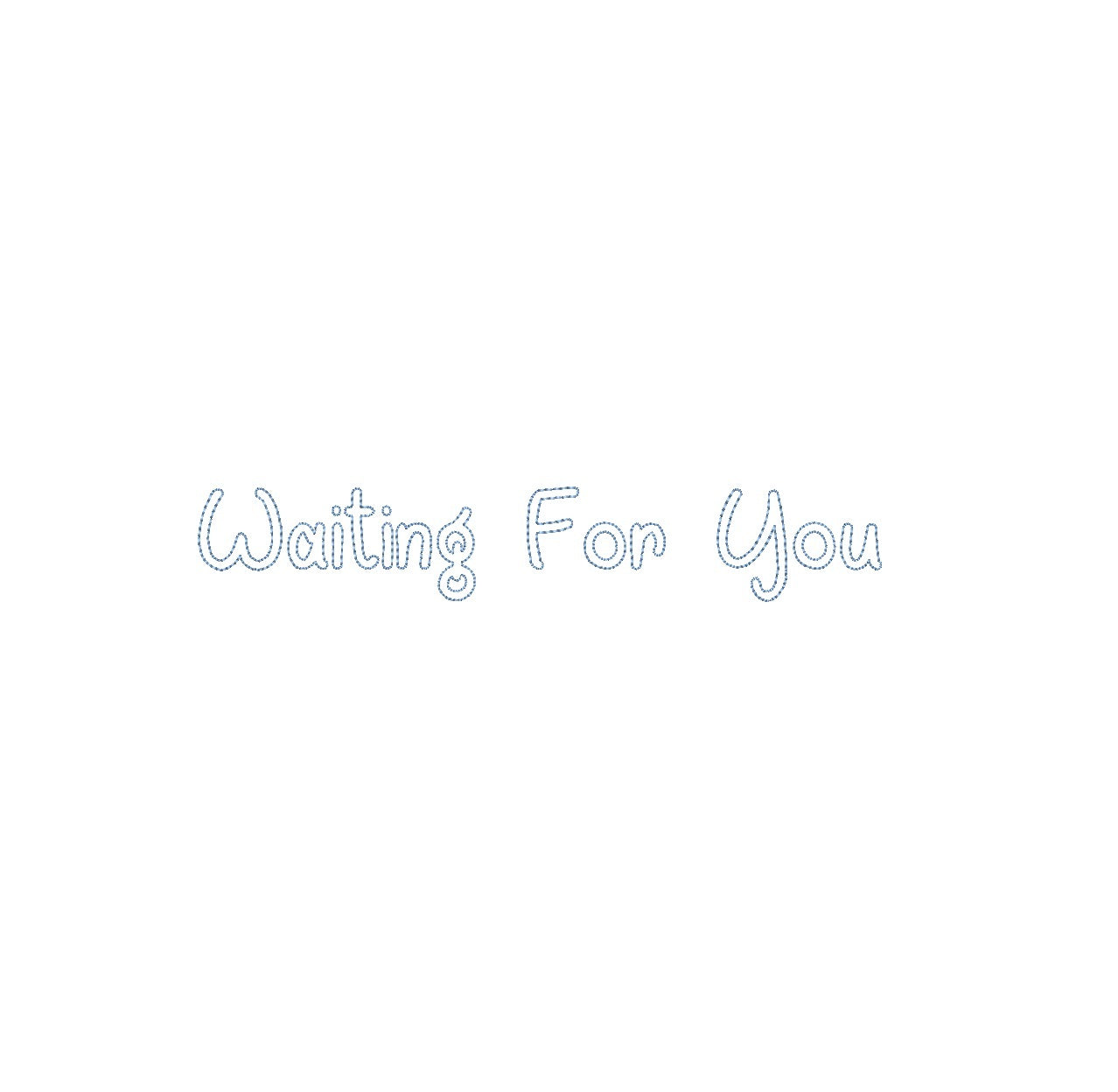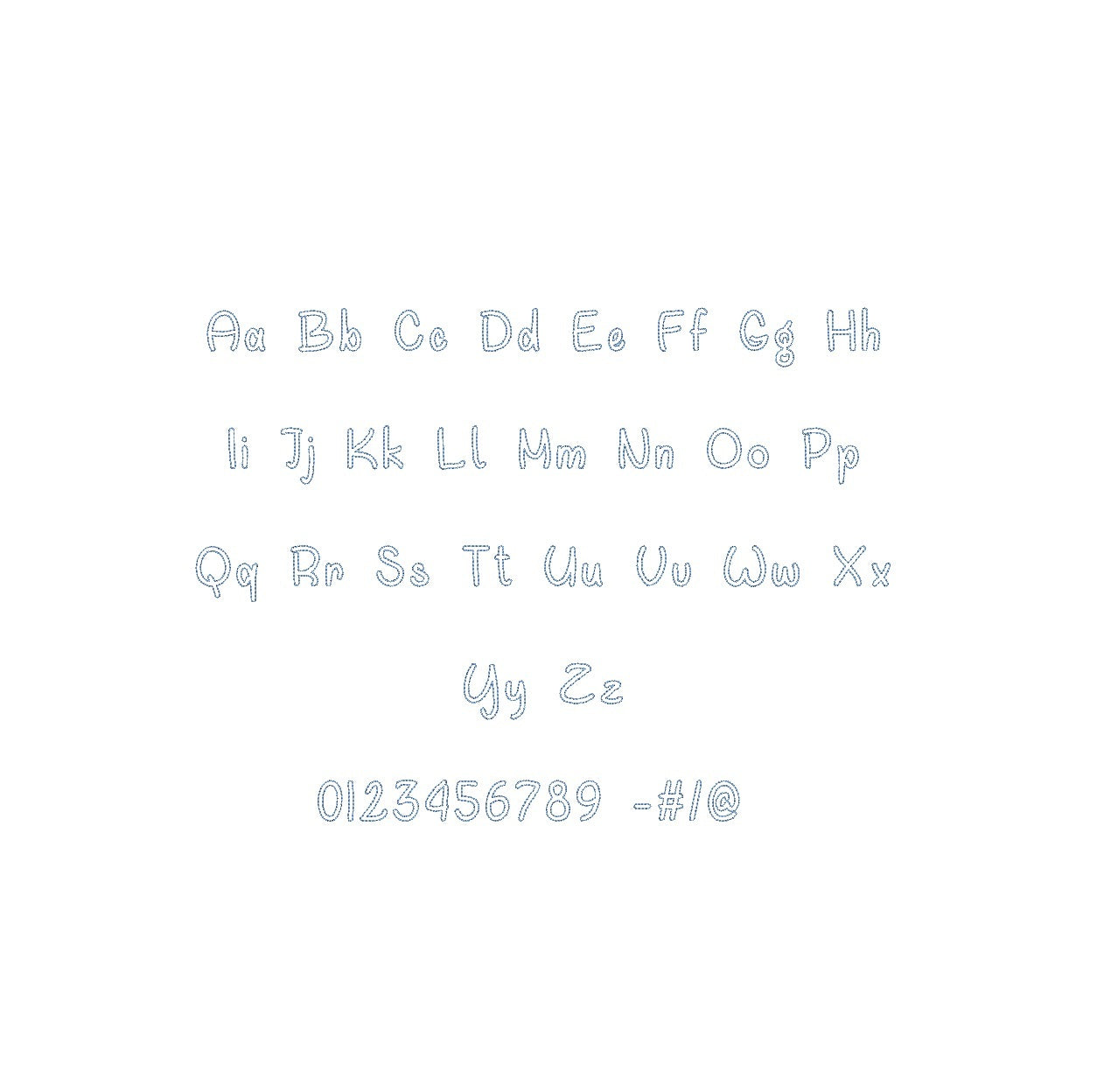
Waiting For You Bean Stitch Outline ESA font
Elevate your embroidery projects with the Waiting For You Bean Stitch Outline ESA font, compatible with Wilcom Studio e4.5.6 and Hatch 3 versions and up. This font seamlessly blends anticipation and precision, infusing your designs with a unique aesthetic perfect for heartfelt monograms and embellishments. Experience seamless compatibility for exceptional results and unleash a new level of stitching finesse. Transform your creations into embroidery masterpieces that radiate emotion and creativity. Elevate your projects with the Waiting For You Bean Outline ESA font and make your embroidery truly touching and unforgettable.